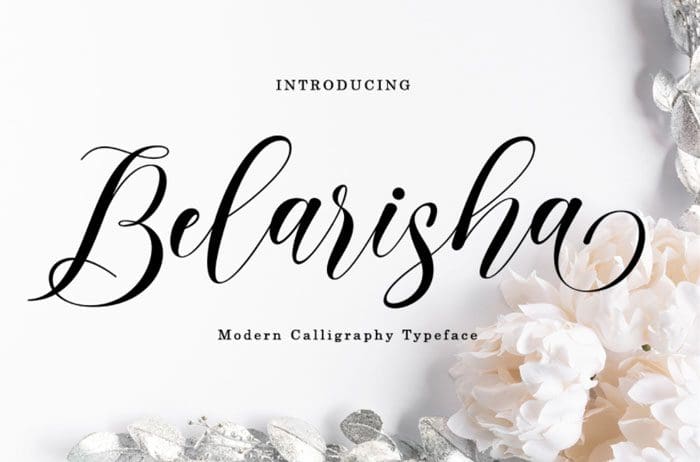
Belarisha Script Font
Belarisha is a luxurious and elegant Script Font. It’s perfect for branding, logos, wedding invitations, quotes and any creative project. Thanks to bosstypestudio for sharing this font! Take a look at this portfolio for more of his stunning fonts.